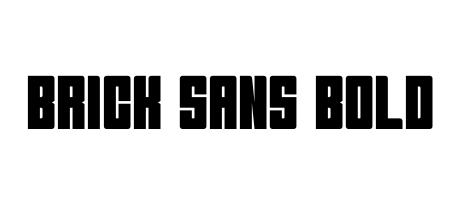
Brick
Brick Sans Bold is a strong, geometric sans-serif typeface. Its bold, blocky letters possess a sturdy, almost monolithic quality. The letterforms are uniform in weight and height, creating a sense of unwavering consistency. Each character is clearly defined with sharp, clean edges, suggesting strength and simplicity. The overall effect is both modern and timeless.